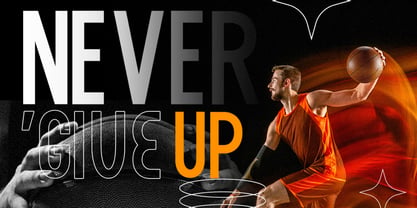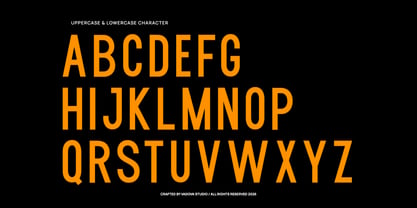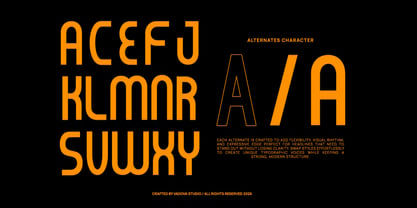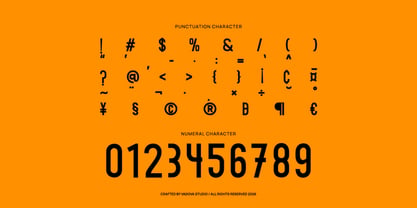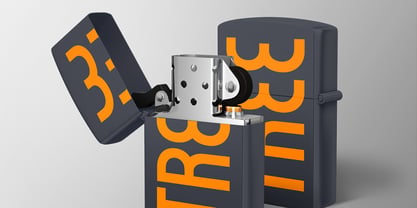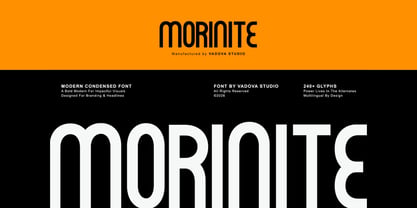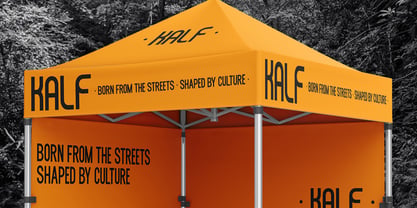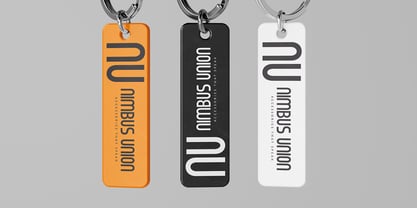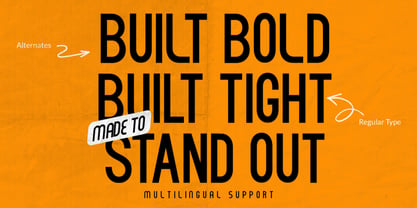
Morinite
by Vadova Std
Morinite is a modern condensed display font crafted with bold proportions, tight spacing, and clean geometric structure. Designed to deliver maximum impact, it features strong vertical forms, sharp edges, and confident readability for headlines and large-scale typography. Morinite brings clarity and strength to visual communication with its compact and commanding letterforms. It works perfectly for branding, posters, advertising, packaging, editorial titles, digital banners, social media graphics, sports visuals, tech startups, and modern corporate identities where bold presence and space efficiency matter most.